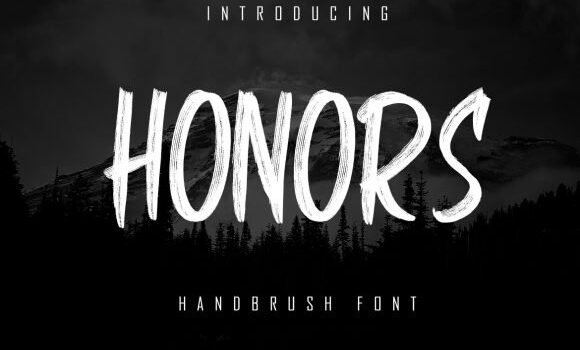
Honors Font – Free Download Introduction to Honors Font Honors is a cool, thick lettered, brushed display font. 📸 Preview Gallery 6 images 📌 Product Name Honors Font 👤 Author Skiiller Studio 📂 Category Explore ⬇️ Download Honors Font FREE